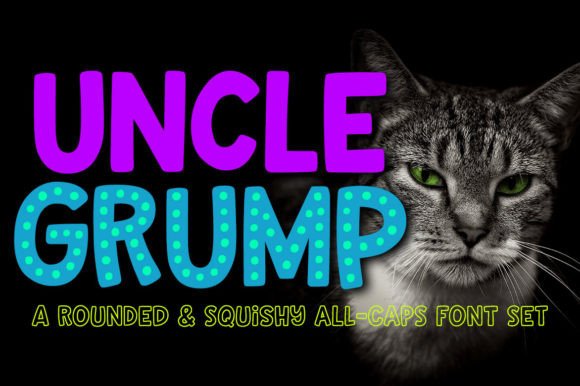
Introducing Uncle Grump Font: A Fun and Versatile Hand-Lettered Font
Are you looking for a font that can add a touch of fun and personality to your projects? Look no further than Uncle Grump Font! This hand-lettered font is based on one of the most popular styles requested by designers and crafters, and it’s perfect for a wide range of projects, from kid-friendly designs to more mature, grown-up vibes.
What Makes Uncle Grump Font So Special?
Uncle Grump Font is a heavy and bold font with rounded corners and a fun, hand-drawn feel. Its unique blend of playfulness and sophistication makes it an excellent choice for a variety of projects, including:
- Kid-related projects, such as children’s books, educational materials, and kids’ party invitations
- Grown-up designs, like posters, flyers, and social media graphics
- Crafting projects, such as scrapbooking, card making, and DIY tutorials
The Benefits of a Hand-Lettered Font
Hand-lettered fonts like Uncle Grump offer a level of personality and character that digital fonts often can’t match. With a hand-lettered font, you get:
- A unique, one-of-a-kind look that sets your project apart
- A more personal, human touch that resonates with your audience
- The ability to add custom flourishes and details that make your project truly special
What You’ll Get with Uncle Grump Font
When you download Uncle Grump Font, you’ll get a comprehensive package that includes:
- Uncle Grump – solid base alphabet
- Uncle Grump Dotty – solid letters with transparent dots cut out
- Uncle Grump Overlay Dots – dots to place over the top of Uncle Grump
- Uncle Grump Overlay Outline – an outline to place over the top of Uncle Grump
- Standard base character set (A-Z, a-z, 0-9, punctuation)
- Over 300 extended Latin characters for language support
- A few stylistic alternates for variety (A, J, K, R, T, t, Y)
- Use Uncle Grump as a title font for a kids’ book or educational material
- Add a playful touch to your social media graphics or blog posts
- Create custom party invitations or decorations with a fun, hand-drawn feel
- Use Uncle Grump Overlay Dots or Outline to add extra visual interest to your design
Uncle Grump Font is a versatile and fun hand-lettered font that’s perfect for a wide range of projects. With its unique blend of playfulness and sophistication, it’s an excellent choice for designers, crafters, and DIY enthusiasts. Whether you’re working on a kid-related project or a more mature design, Uncle Grump Font is sure to add a touch of personality and charm.